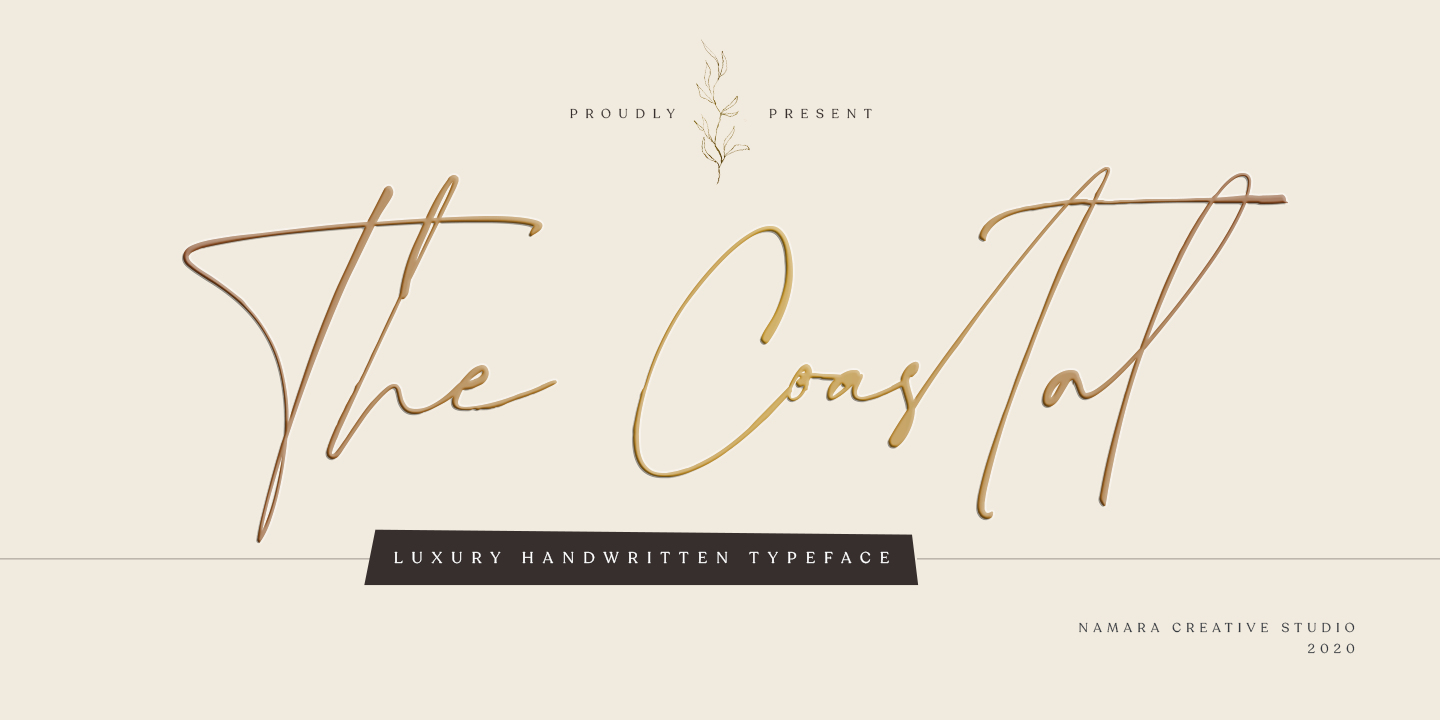
The Coastal Font is perfect for seaside resort branding, oceanfront restaurant menus, beach vacation advertisements, maritime company logos, coastal real estate signage, surfboard shop graphics, nautical themed packaging, and seaside lifestyle magazines. This refreshing typeface excels in marine-inspired applications, coastal hospitality designs, and any project requiring oceanic tranquility that captures the essence of seaside living and maritime adventure through breezy visual elegance.
What makes The Coastal Font exciting is its remarkable ability to embody the peaceful rhythm of ocean waves and coastal serenity through naturally flowing letterforms that carry the gentle spirit of seaside living and maritime freedom. The font features organically designed characters with wave-like curves and coastal proportions that evoke feelings of ocean breeze and sandy shores, making it ideal for brands seeking to establish connections with beach lovers and communicate through relaxed coastal visual language. Its maritime presence ensures immediate recognition of seaside authenticity and oceanic tranquility.
The Coastal Font family includes multiple weights and styles: Regular, Bold, Light, Medium, Italic variations, and wave-inspired alternates with oceanic embellishments and maritime decorative elements. Each family member maintains the distinctive coastal character while offering comprehensive design options for seaside campaigns, from gentle ocean text to commanding coastal headlines that establish maritime authority and seaside credibility through naturally flowing typography.
Whether you're designing coastal brand identities or creating oceanic lifestyle campaigns, The Coastal Font Free Download provides the perfect typography solution for maritime branding needs. This font transforms ordinary text into refreshing coastal expressions that communicate seaside tranquility and oceanic freedom. Coastal resorts and maritime lifestyle brands choose this typeface for its ability to convey oceanic serenity through naturally crafted letterforms that flow through designs like gentle waves and celebrate the timeless beauty of coastal living.